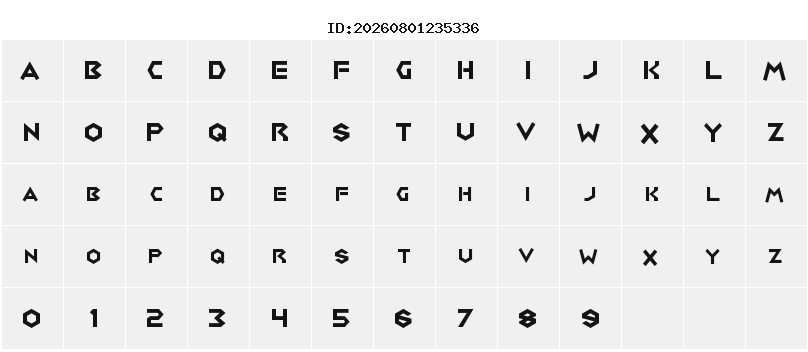
Medabots Preview
• Font Name: Medabots
• Full Font Name: Medabots
• Version: Version 1.10 January 10, 2011
About Medabots.ttf
Medabots.ttf is a modern, elegant sans-serif font designed for ultimate readability and visual harmony. Perfect for branding, headlines, web design, and print materials.